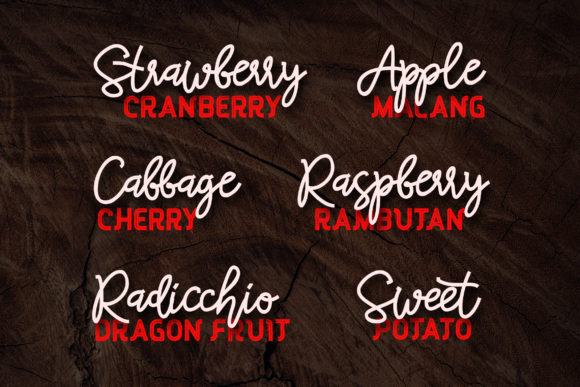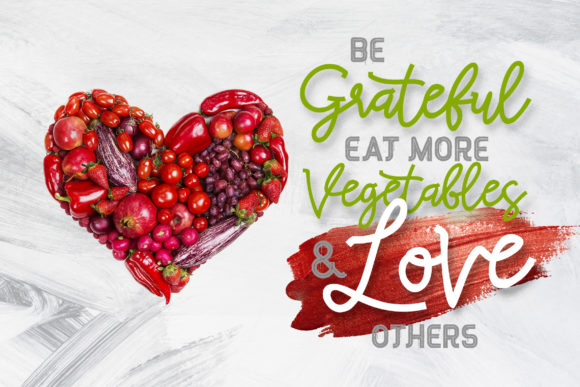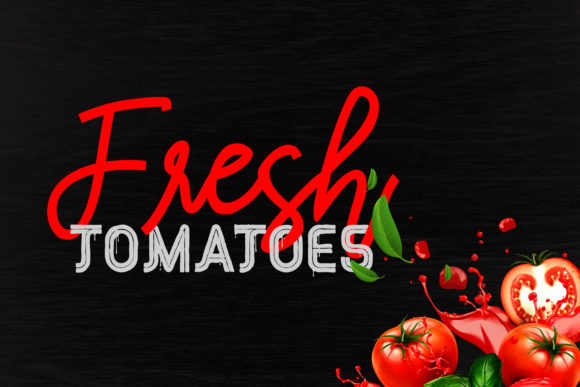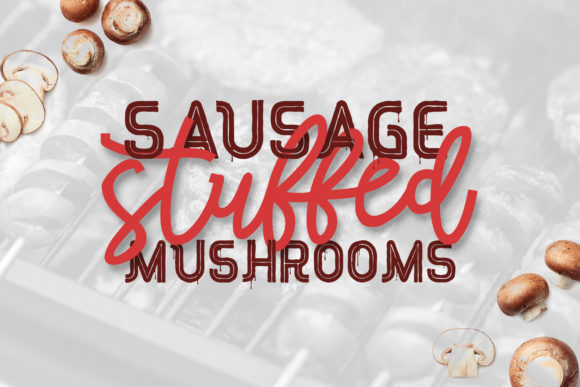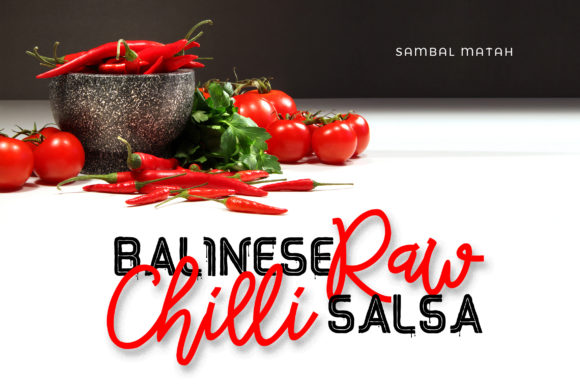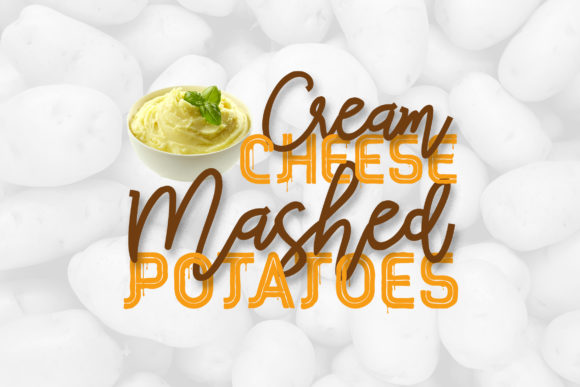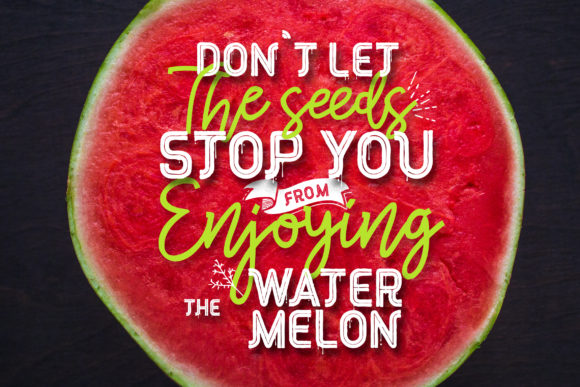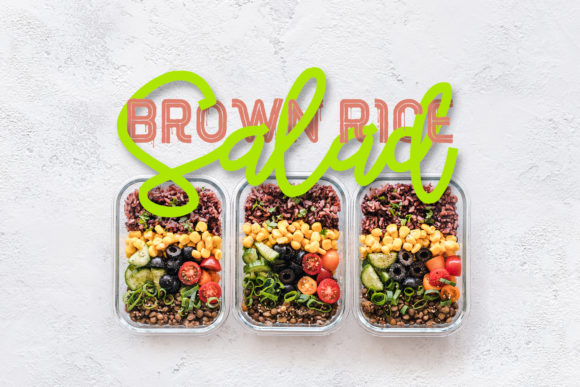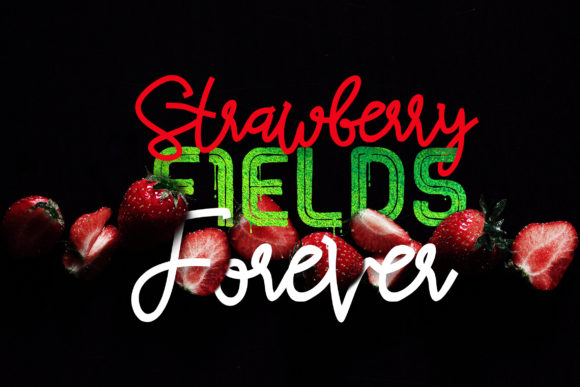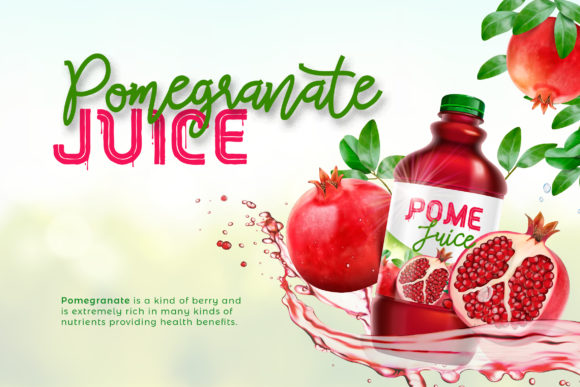
Red Peppers Font
About Red Peppers Font
Red Peppers is a spicey and fun handwritten font with a cool feel. Use it to turn any design projecy into a true standout!